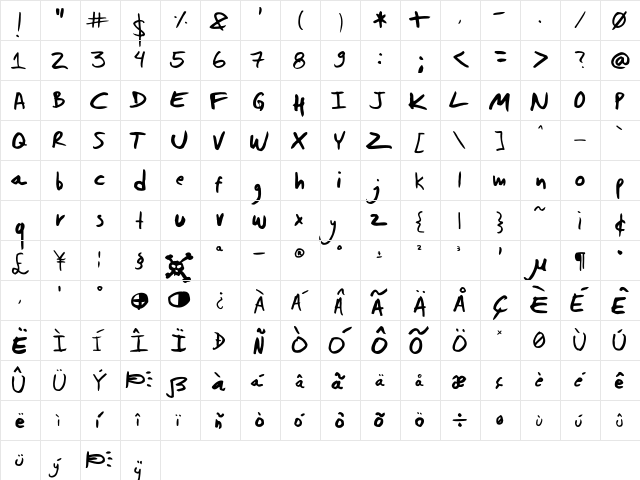
dwerneck Regular
| Foundry | Daniel Leal Werneck |
| Designer | Daniel Leal Werneck |
Design Context for dwerneck Typeface
dwerneck is a composed and adaptable typeface that performs quietly and consistently across a wide range of design contexts.